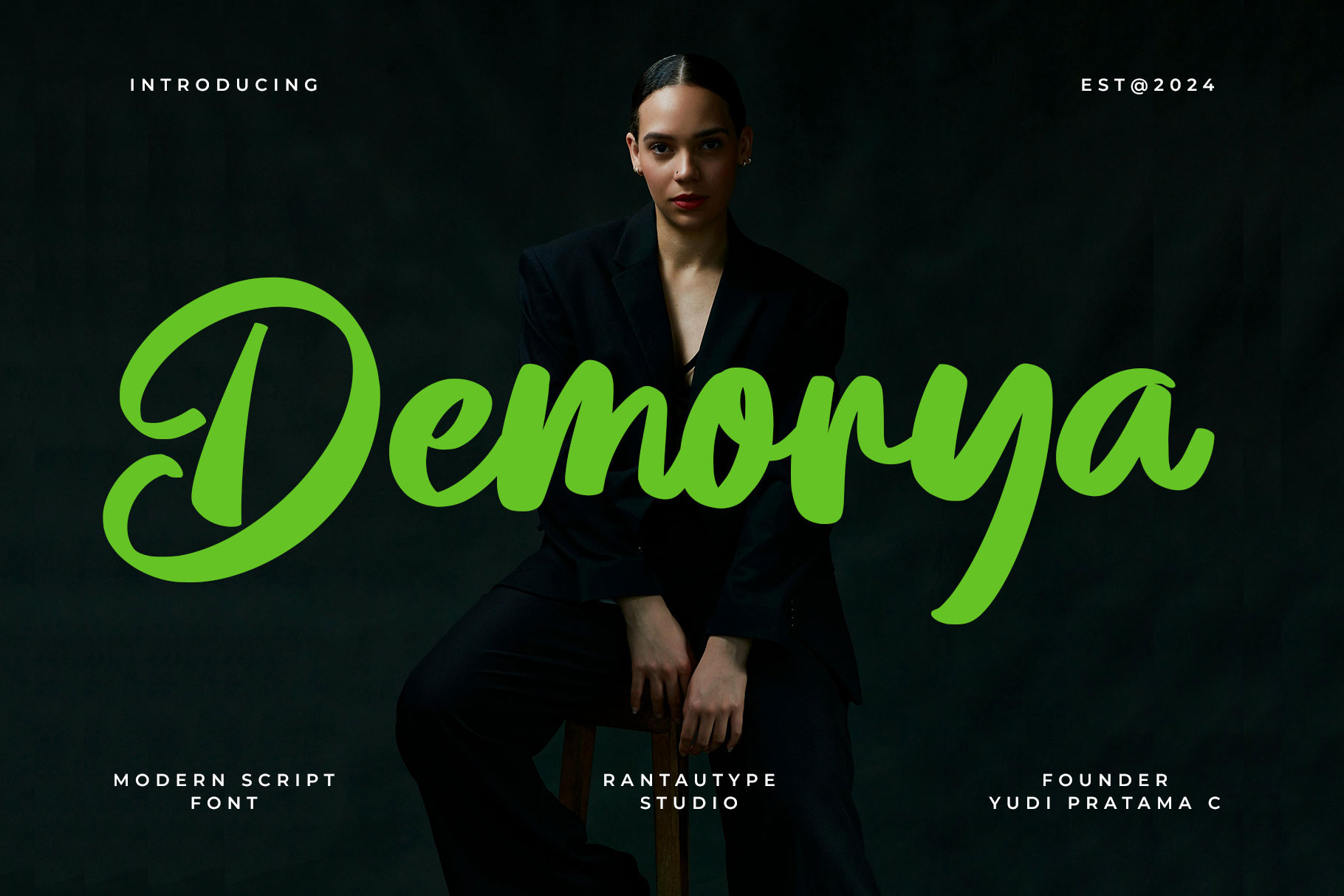
Demorya Bold Script Font
Demorya is bold script font come with modern and trendy style. Demorya is a perfect choice for any creative endeavor, lifestyle design such as logos, title, watermark on photography, cover, branding, display and magazine, wedding event, corporate brand, quotes, album cover, business card, business project, company branding and more project with handwritten taste.
- Alternate and ligature